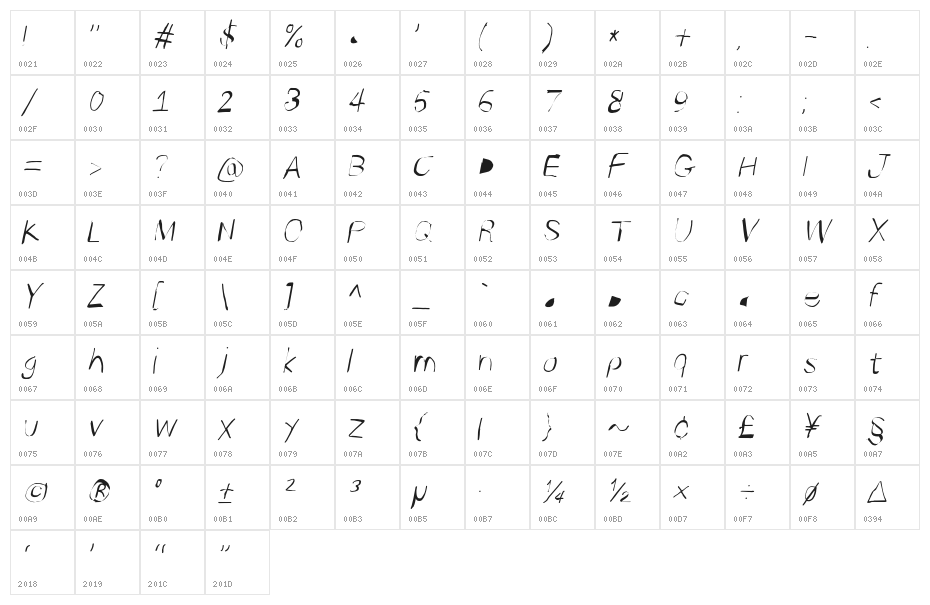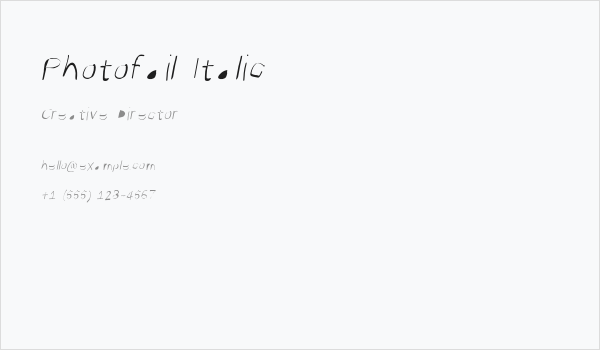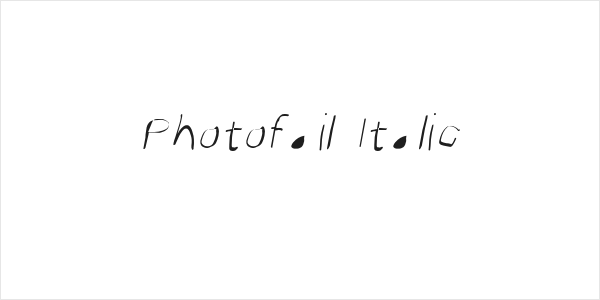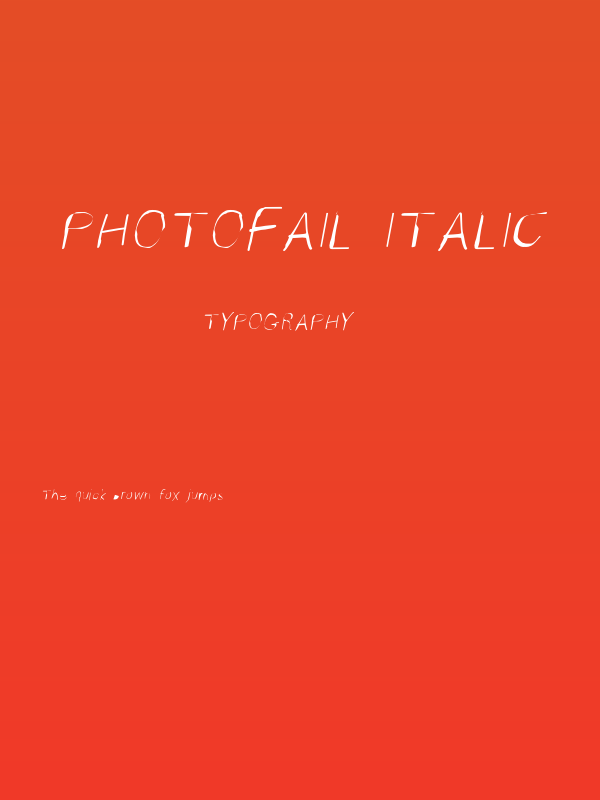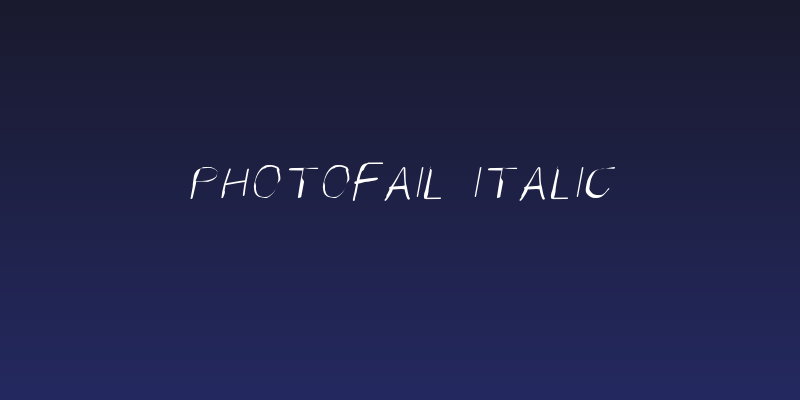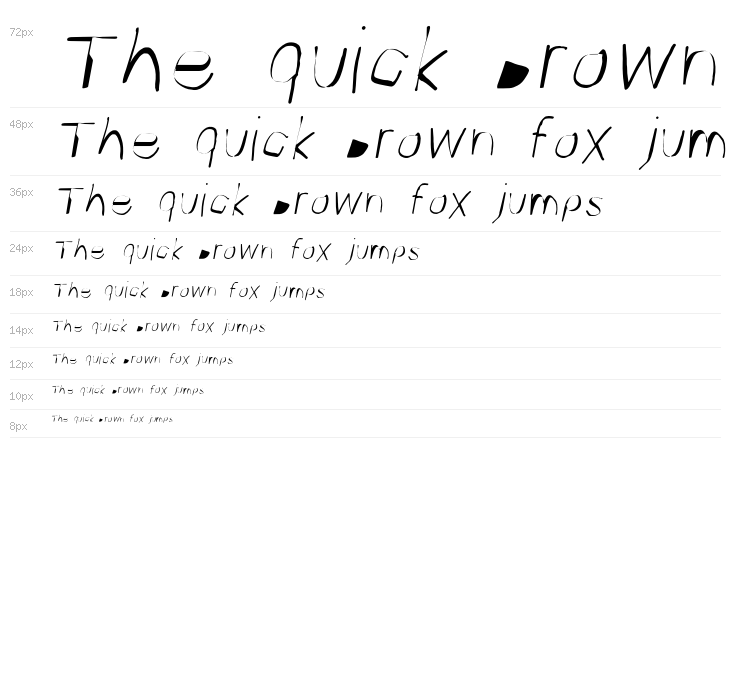
Photofail Italic Font
Photofail Italic Description
This font features a playful and dynamic style with a handwritten appearance. The characters are italicized, giving them a sense of movement and fluidity. The strokes are uneven, with varying thicknesses that add to the casual and informal feel. The uppercase letters are bold and prominent, while the lowercase letters maintain a consistent flow. Numbers and special characters are designed to match the overall whimsical aesthetic. This font is ideal for projects that require a personal touch or a creative flair.
| Proposed Projects | Great for greeting cards, creative posters, children's books, and artistic branding. |